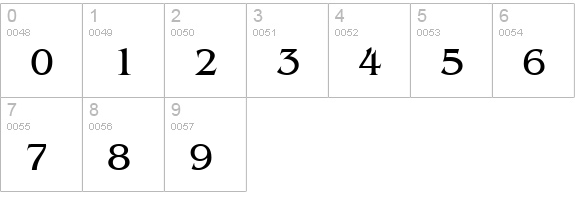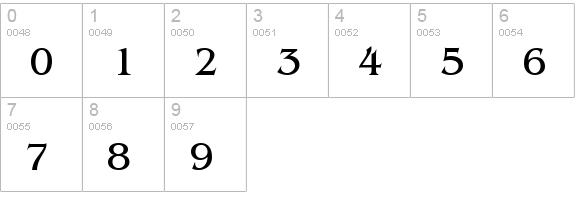
Bangle Normal is the standard, neutral variant in the Bangle typeface family \xE2\x80\x94 well suited to general body text, paragraphs, and standard typographic work.
Bangle Normal font is a beautifully crafted typeface that exudes elegance and charm. With its delicate strokes and graceful curves, this font is perfect for adding a touch of sophistication to any design project. Whether you're creating invitations, branding materials, or social media graphics, Bangle Normal font will elevate your visuals to the next level. The best part? Bangle Normal font is completely free to download at FontsMarket.com. Embrace the beauty and versatility of this stunning font without any cost attached. Don't miss out on the opportunity to enhance your creative endeavors with the timeless appeal of Bangle Normal font. Download it now and let your designs shine with effortless grace.